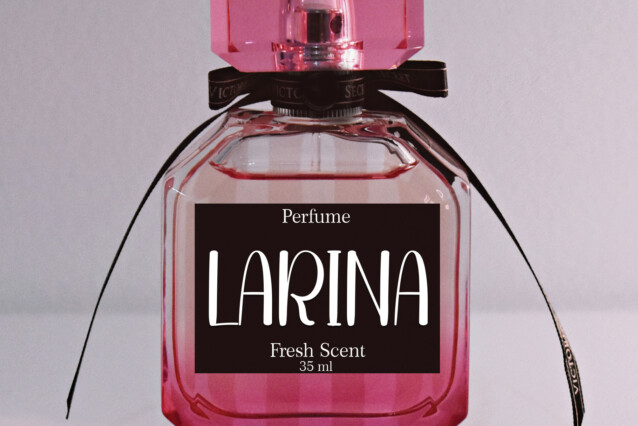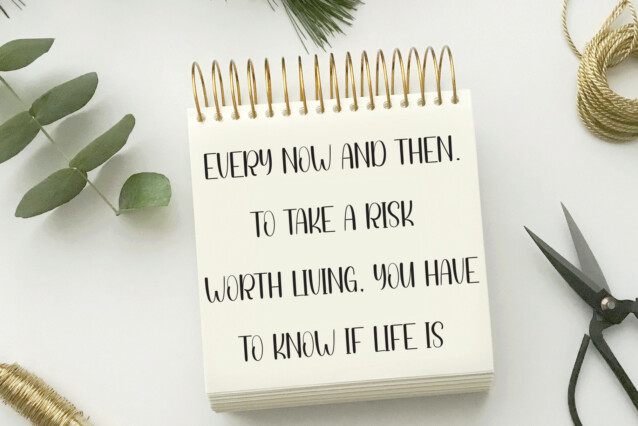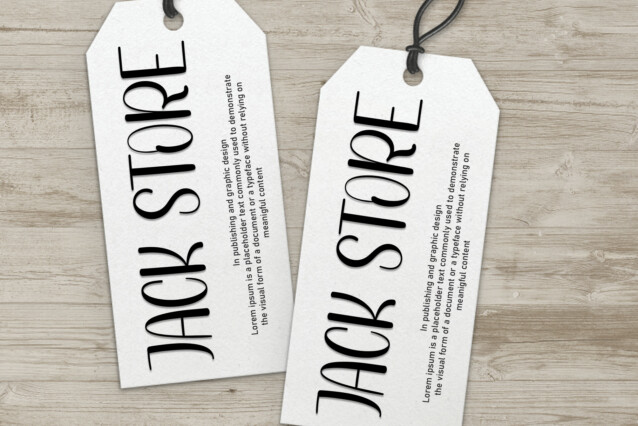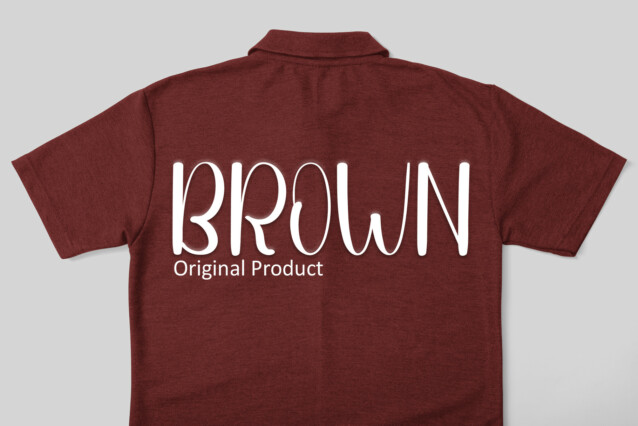
Watchful Display Font is a sweet and friendly handwritten display font. Cute and fun, this font is ideal for writing wedding invitations, cards, or any other design that might need a playful touch!